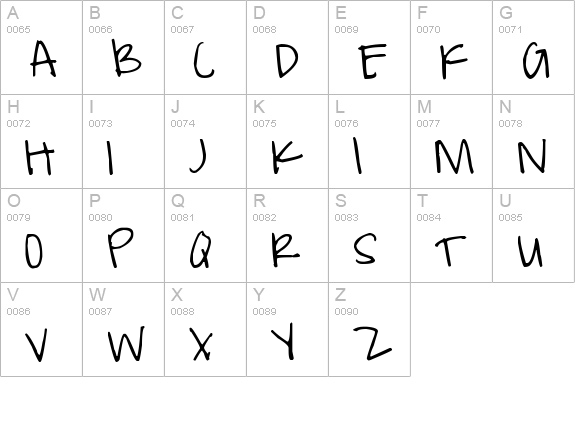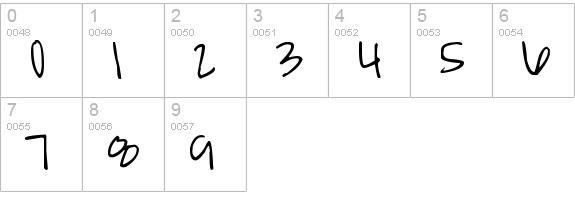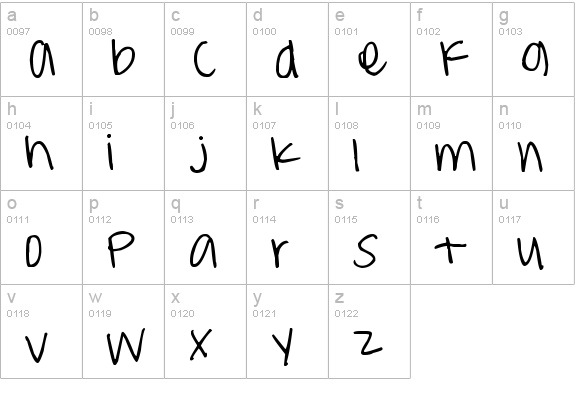
Pea Weenie Font Details
Pea Weenie font is a charming and whimsical typeface that exudes a playful and lighthearted vibe. Perfect for adding a touch of fun to your designs, this font features cute and quirky characters that are sure to delight. Whether you're working on a children's book, invitations, or any other creative project, Pea Weenie font will bring a sense of joy and whimsy to your work. And the best part? Pea Weenie font is completely free to download at FontsMarket.com! So go ahead and add this delightful font to your collection today and let your creativity soar.